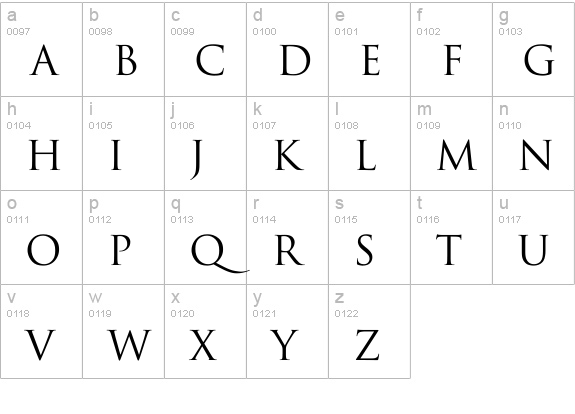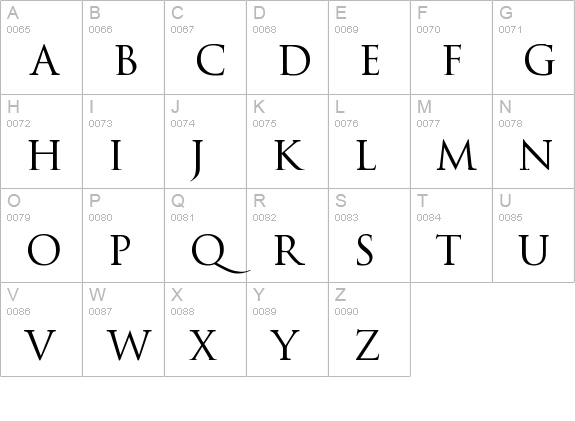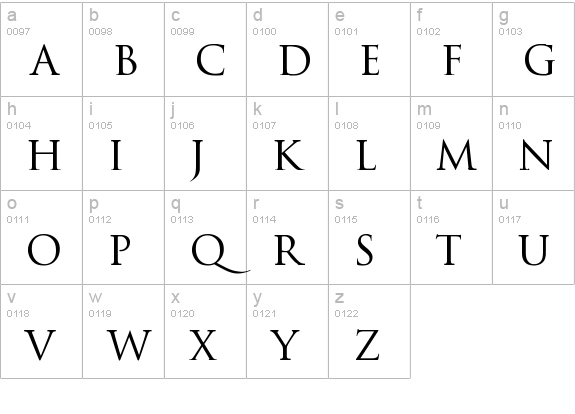
Trajax Font Details
Introducing Trajax, a modern and stylish font that effortlessly combines elegance and versatility. With its sleek and sophisticated design, Trajax is the perfect choice for a wide range of creative projects, from branding and logos to invitations and social media graphics. What sets Trajax apart is not just its stunning aesthetics, but also the fact that it is available for free. Yes, you read that right – Trajax is freely available to download at FontsMarket.com. This means that you can enhance your designs with this exquisite font without having to spend a single penny. Crafted with utmost care and attention to detail, Trajax boasts clean lines and well-defined curves, making it highly legible in both small and large sizes. Its wide range of weights and styles allows you to experiment and create diverse typographic compositions, ensuring that your designs stand out from the crowd. Whether you're designing for print or web, Trajax offers exceptional readability and visual appeal, making it a valuable asset for any project. Its timeless elegance and modern charm will captivate your audience and leave a lasting impression. So, why wait? Elevate your designs with the stunning Trajax font – freely available for download at FontsMarket.com. Unleash your creativity and transform your projects into works of art with this remarkable font that exudes sophistication and versatility. Don't miss out on this incredible opportunity to enhance your designs with Trajax, the font that combines beauty and accessibility in perfect harmony.